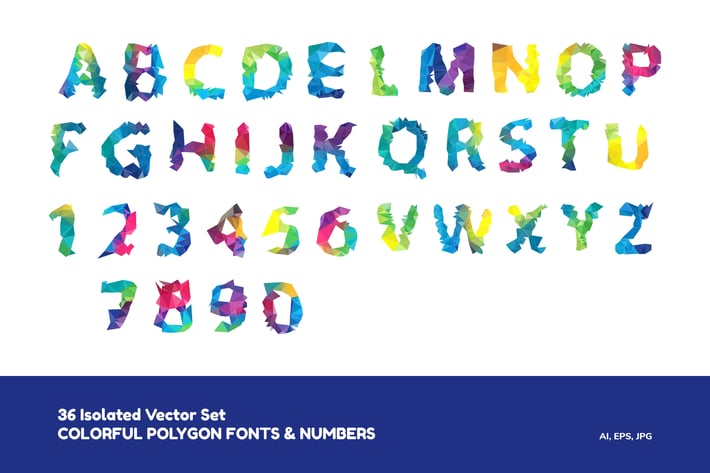
Colorful Polygon Fonts and Numbers
Colorful Polygon Fonts and Numbers Isolated Vector Set. Vector illustration.
Included 36 Colorful Polygon Fonts and Numbers Object